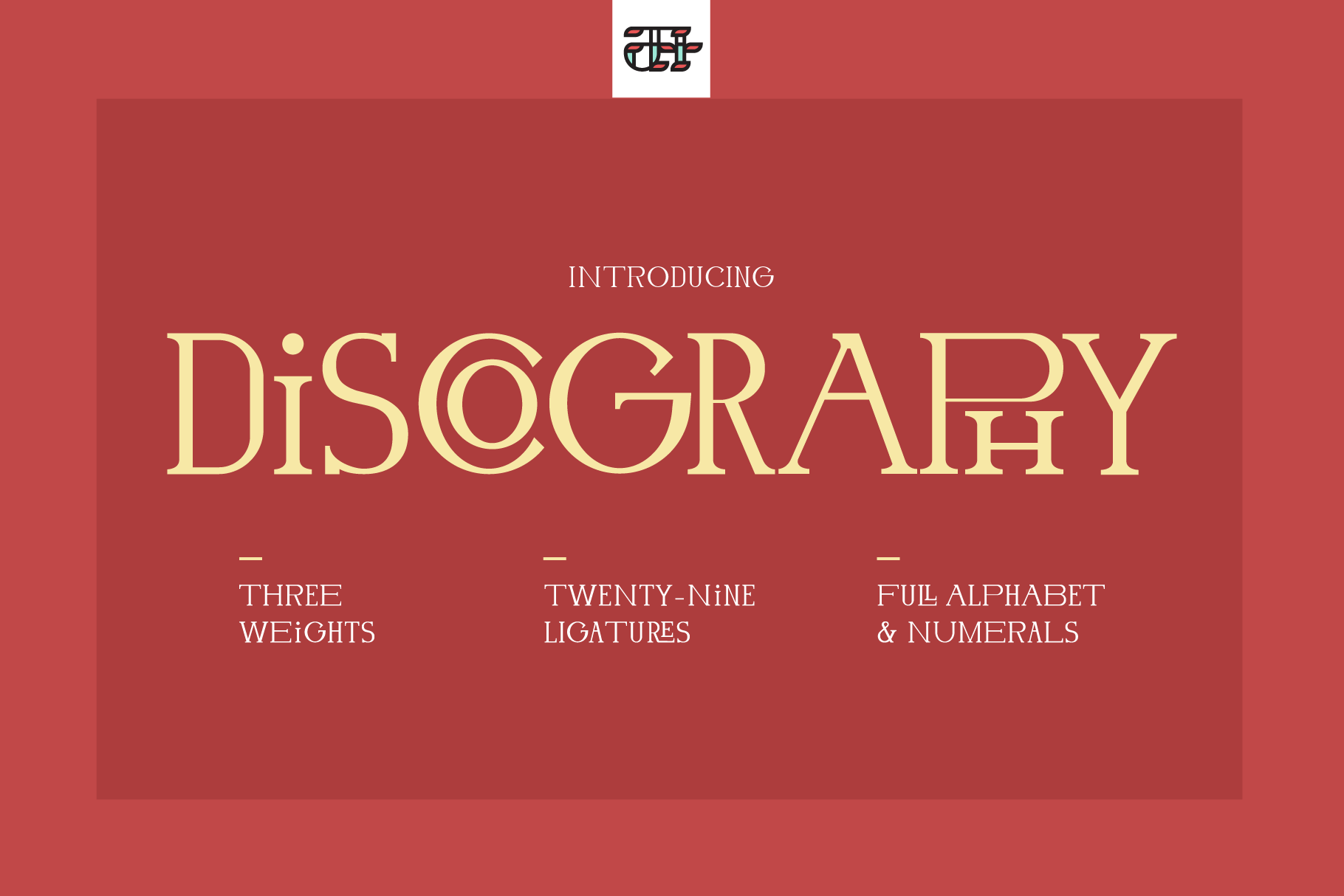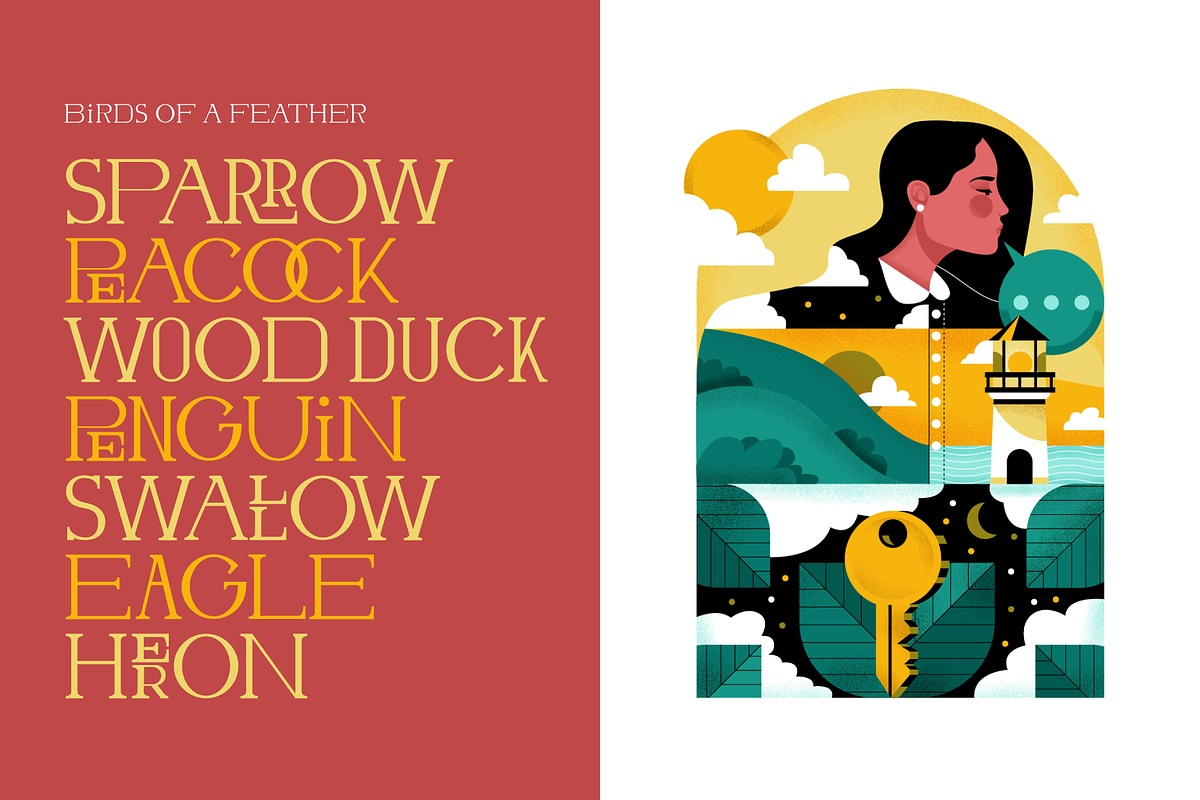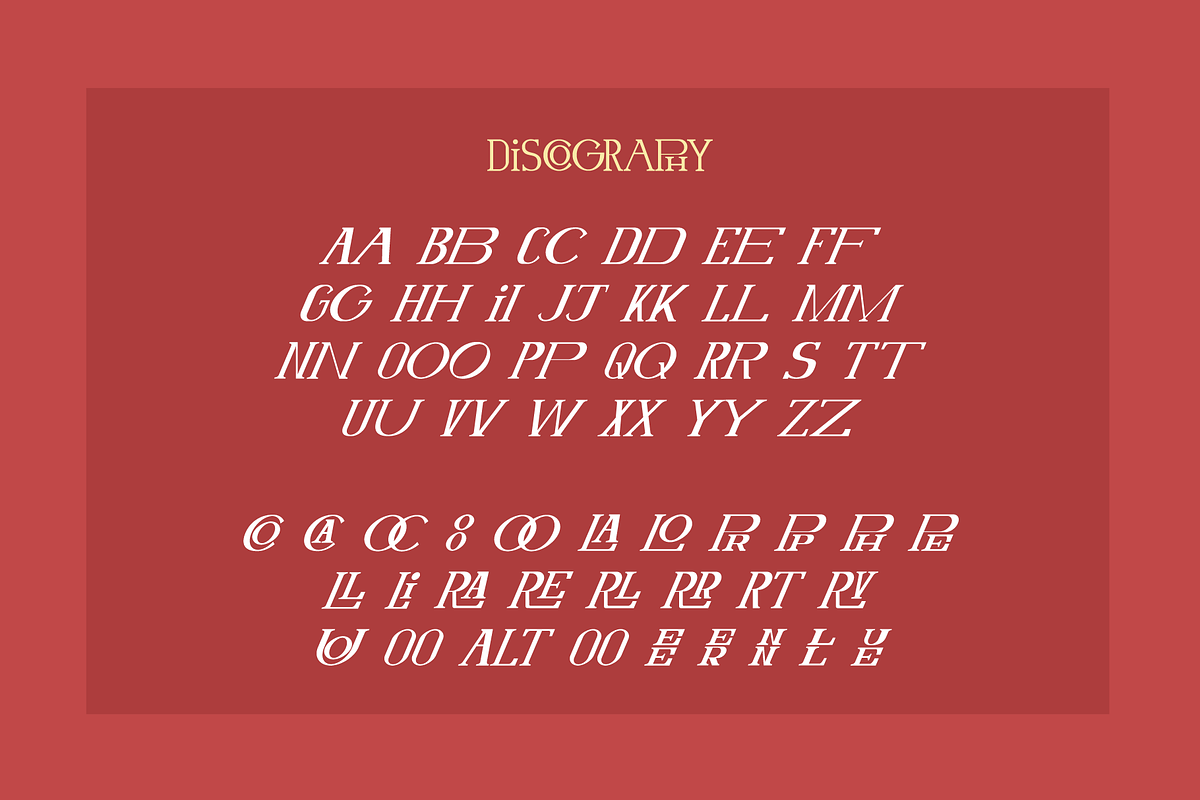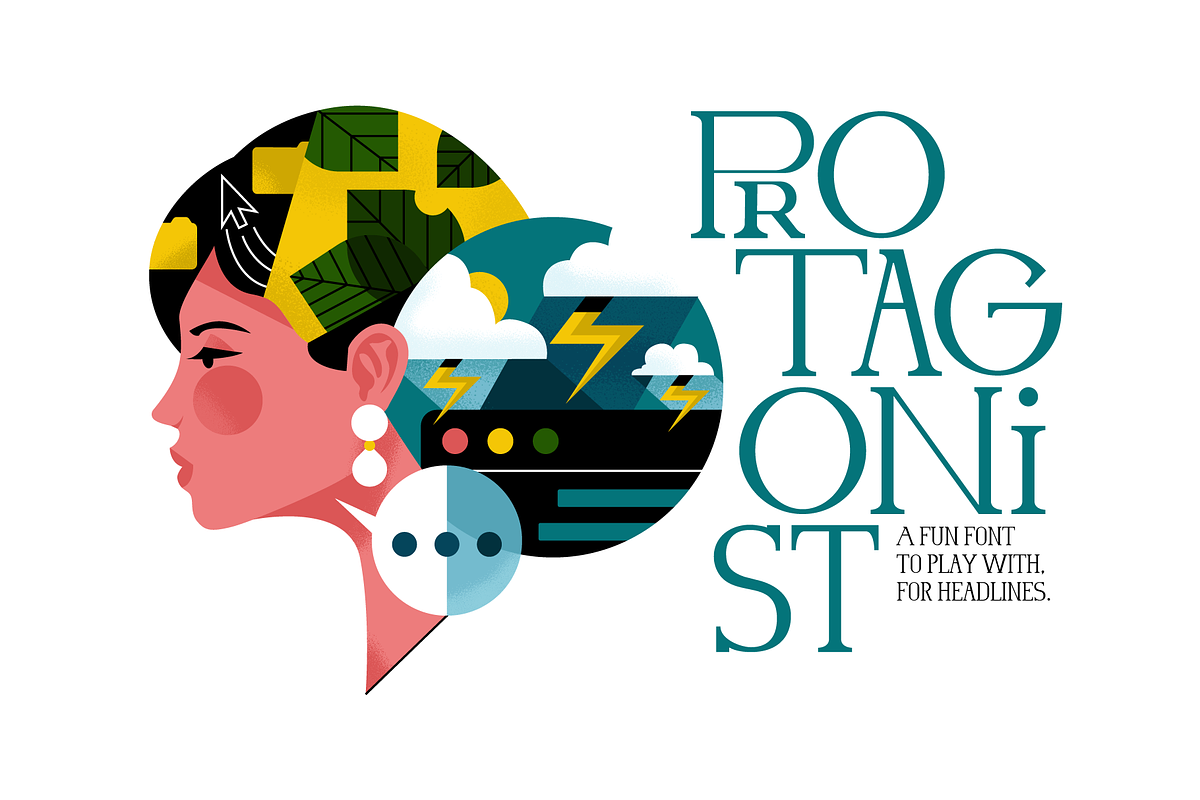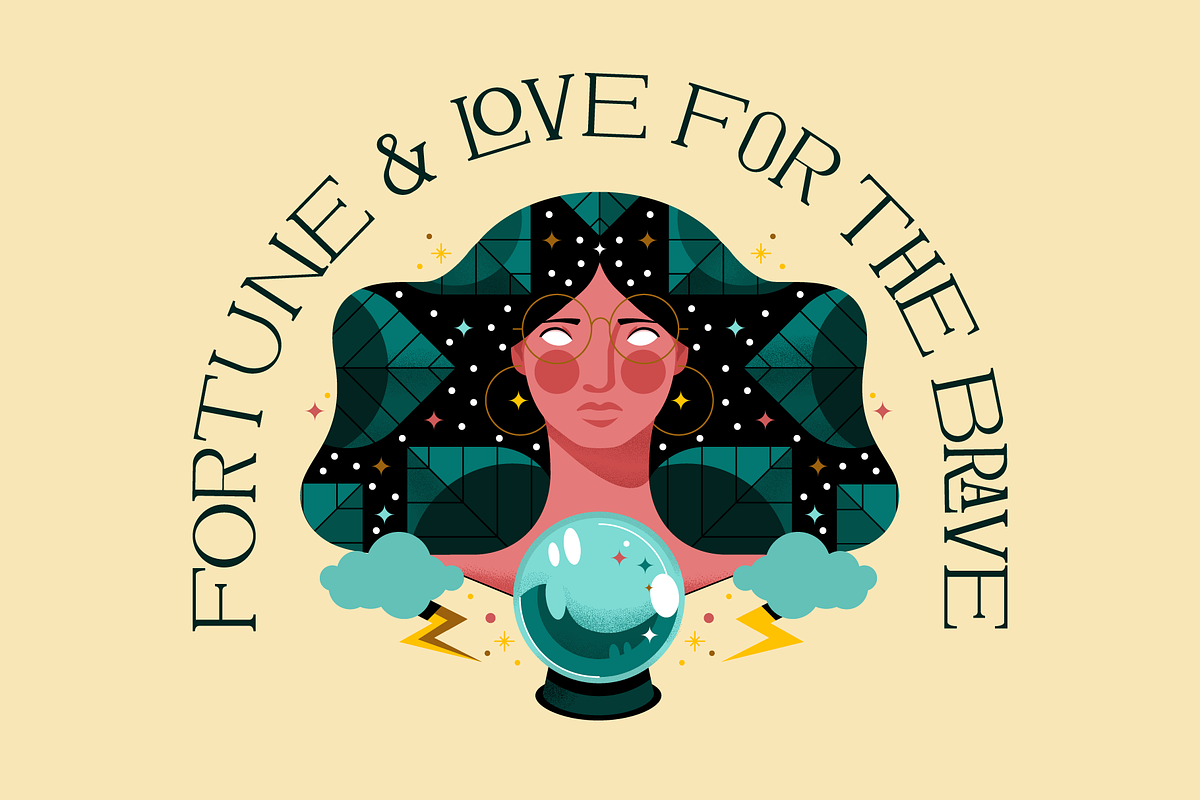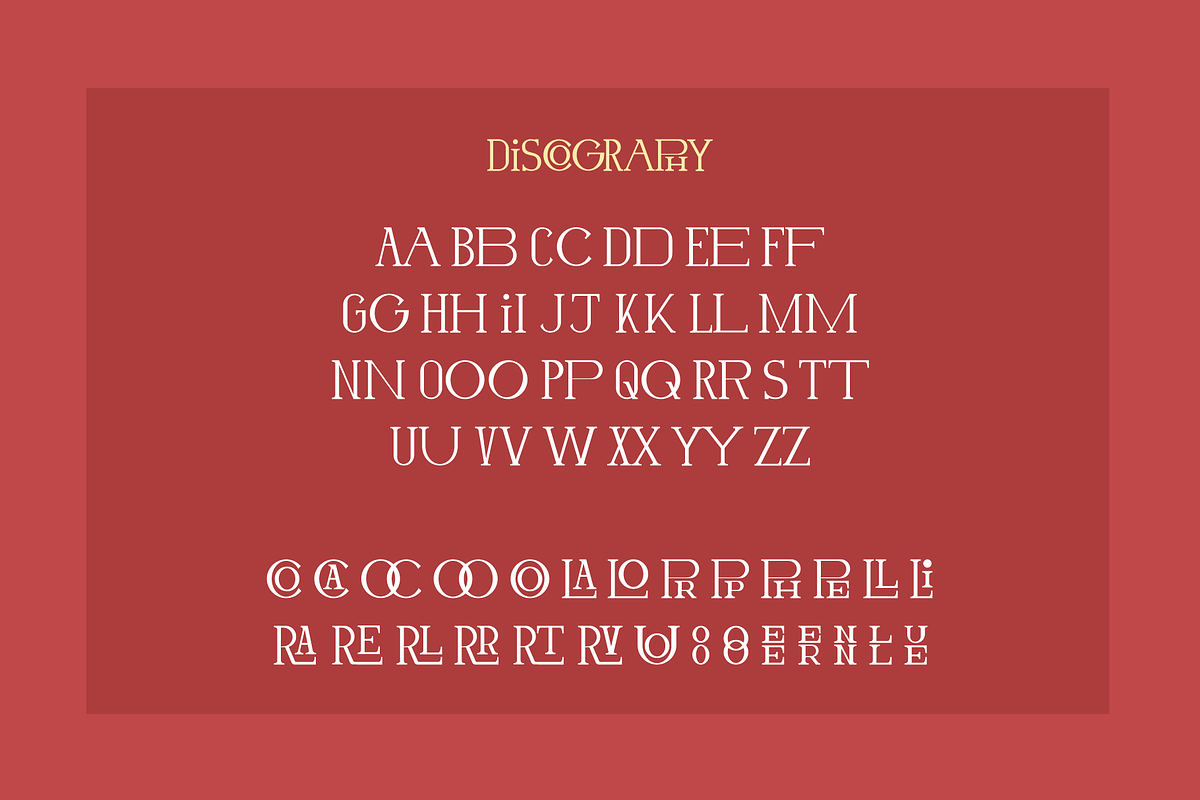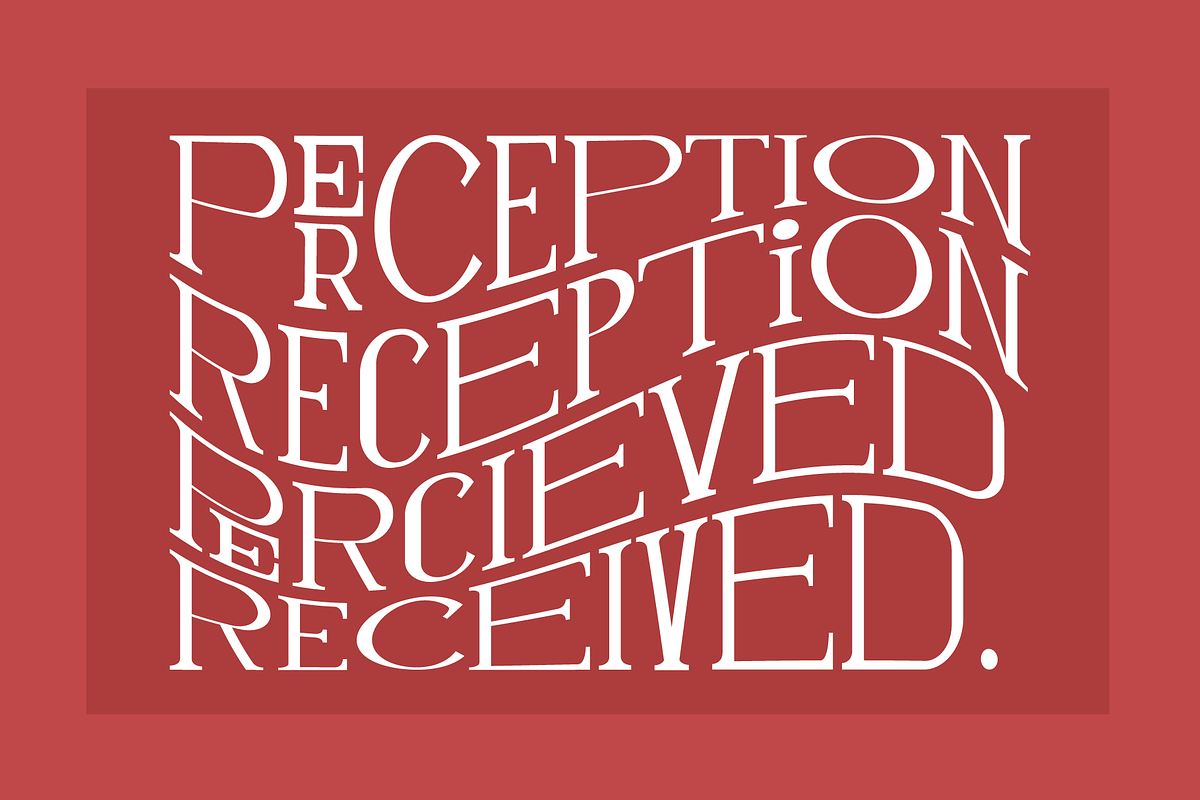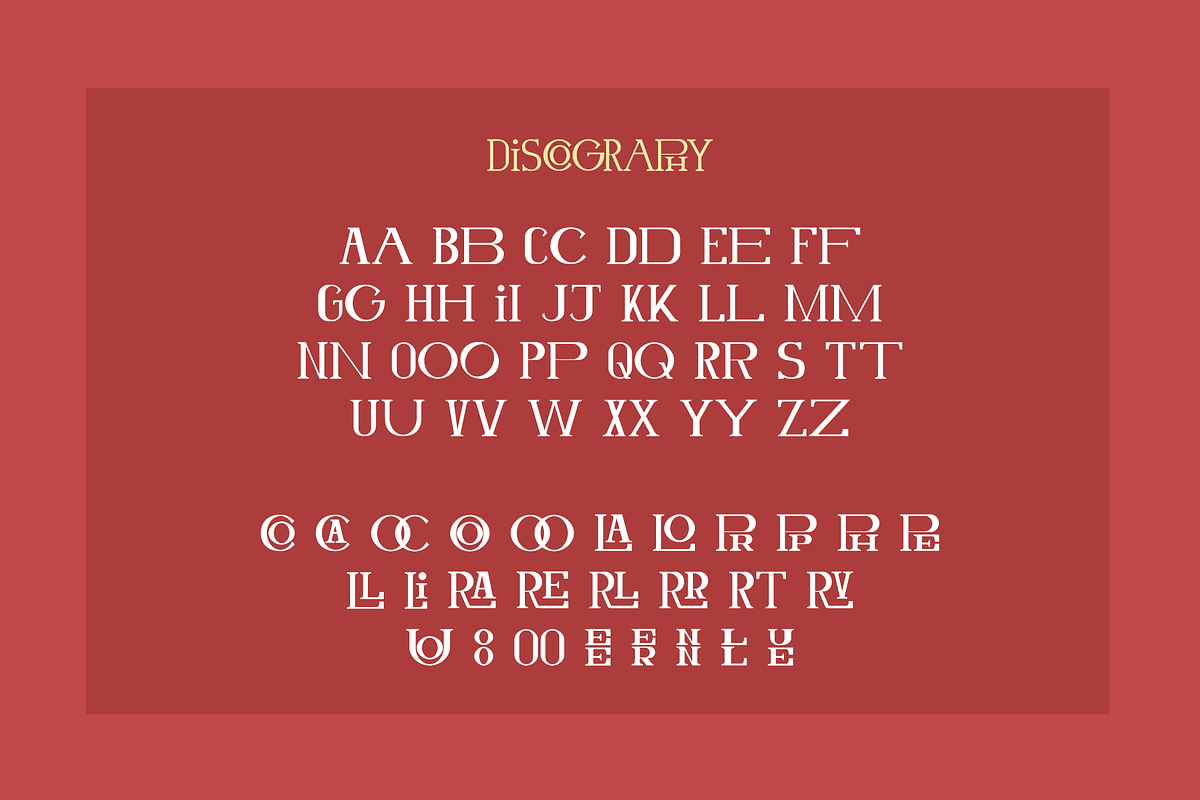
Discography Display Font
Discography is an all caps retro serif font with unique ligatures and wide/condensed letters, by Holt510. Switch between wide and condensed using upper and lowercase letters. This font is great for headlines and for branding projects. Discography includes 3 weights, 29 ligatures, and full alphabet & numeral sets. This font lets you get weird with all of it's variety. Thanks for looking!